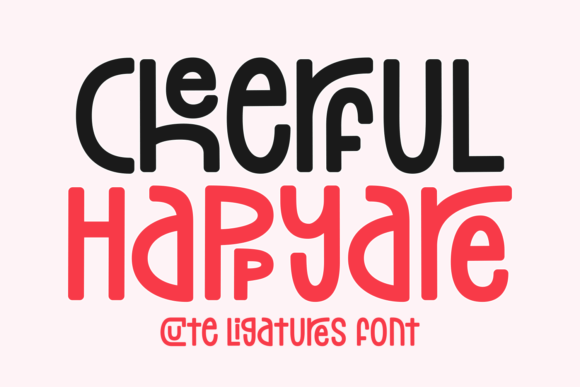
Cheerful Happyare
Finding the right design elements can be challenging, but Cheerful Happyare offers an exceptional collection that elevates your work instantly.
Whether you are creating POD (Print on Demand) products, wedding invitations, or social media graphics, Cheerful Happyare is an ideal fit.